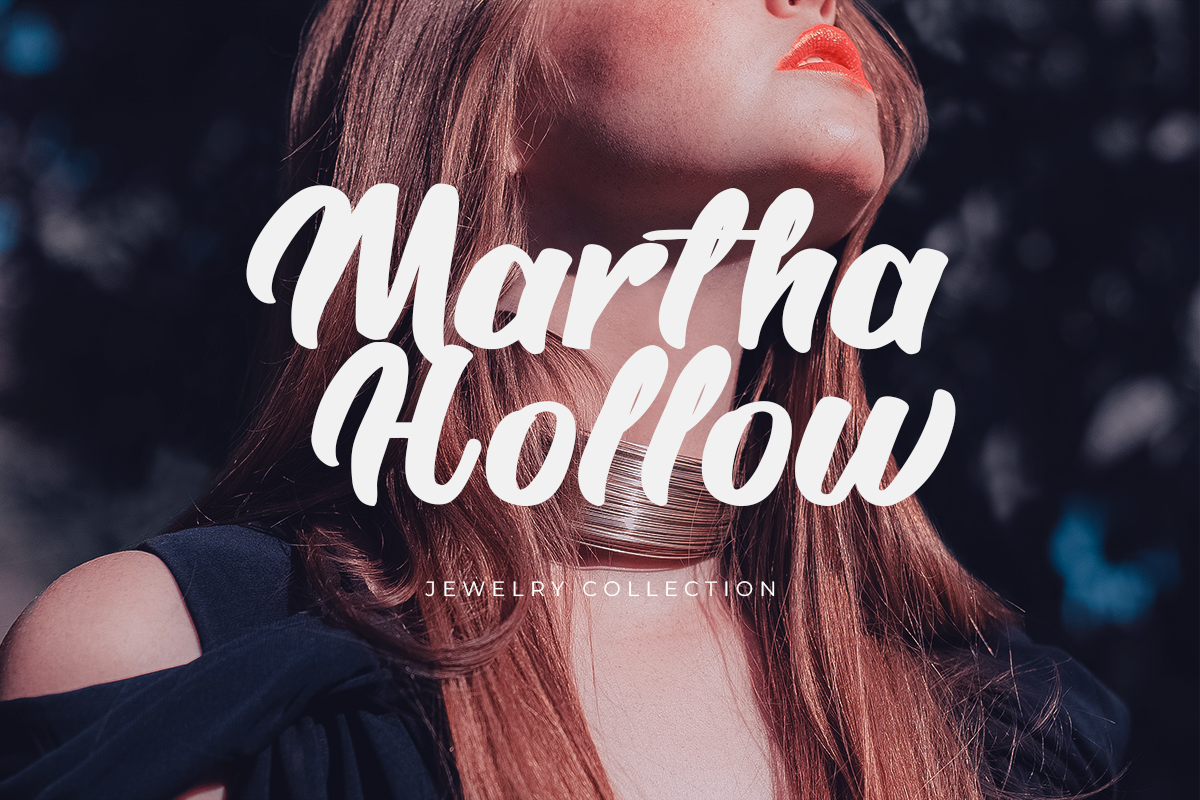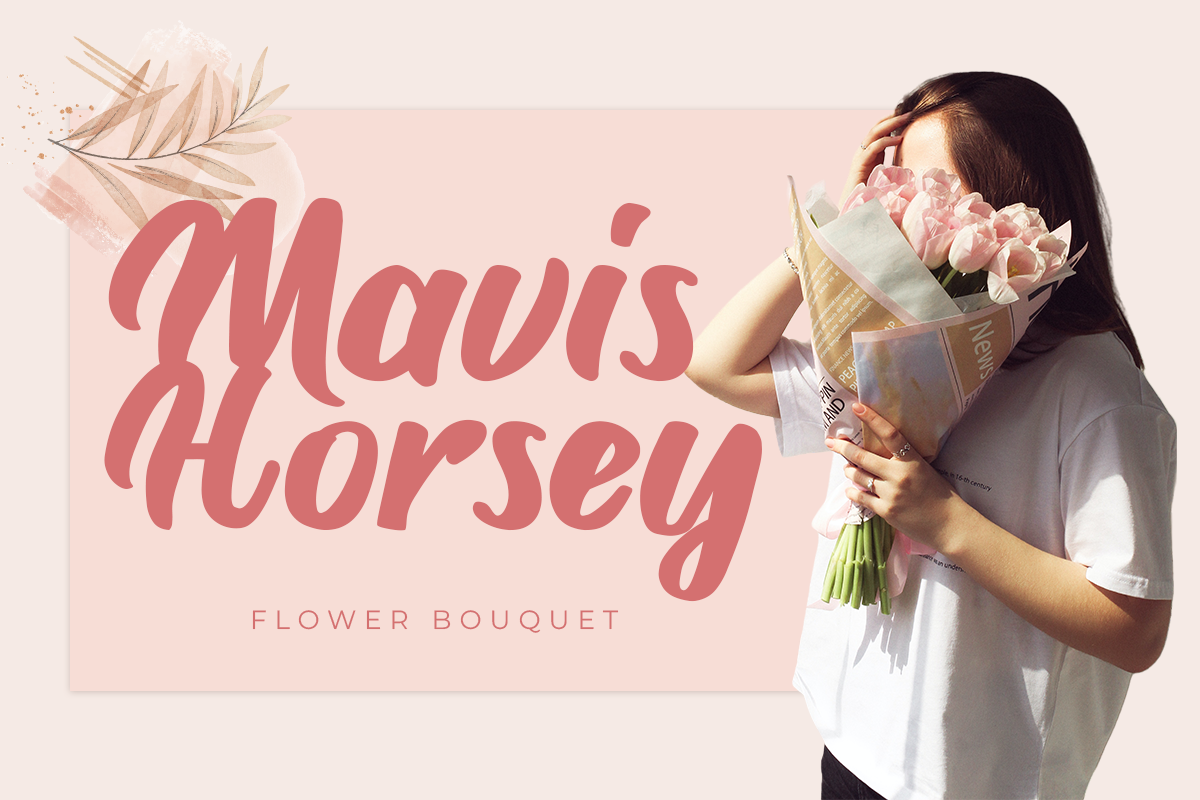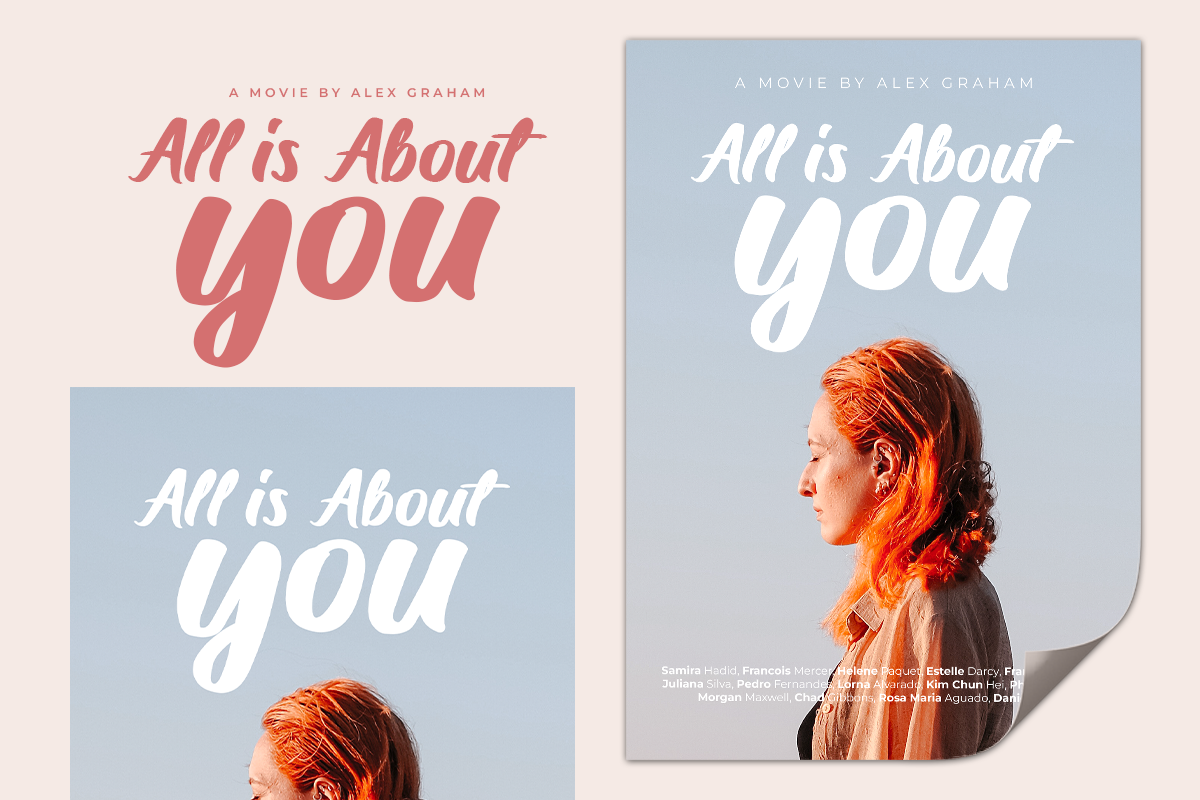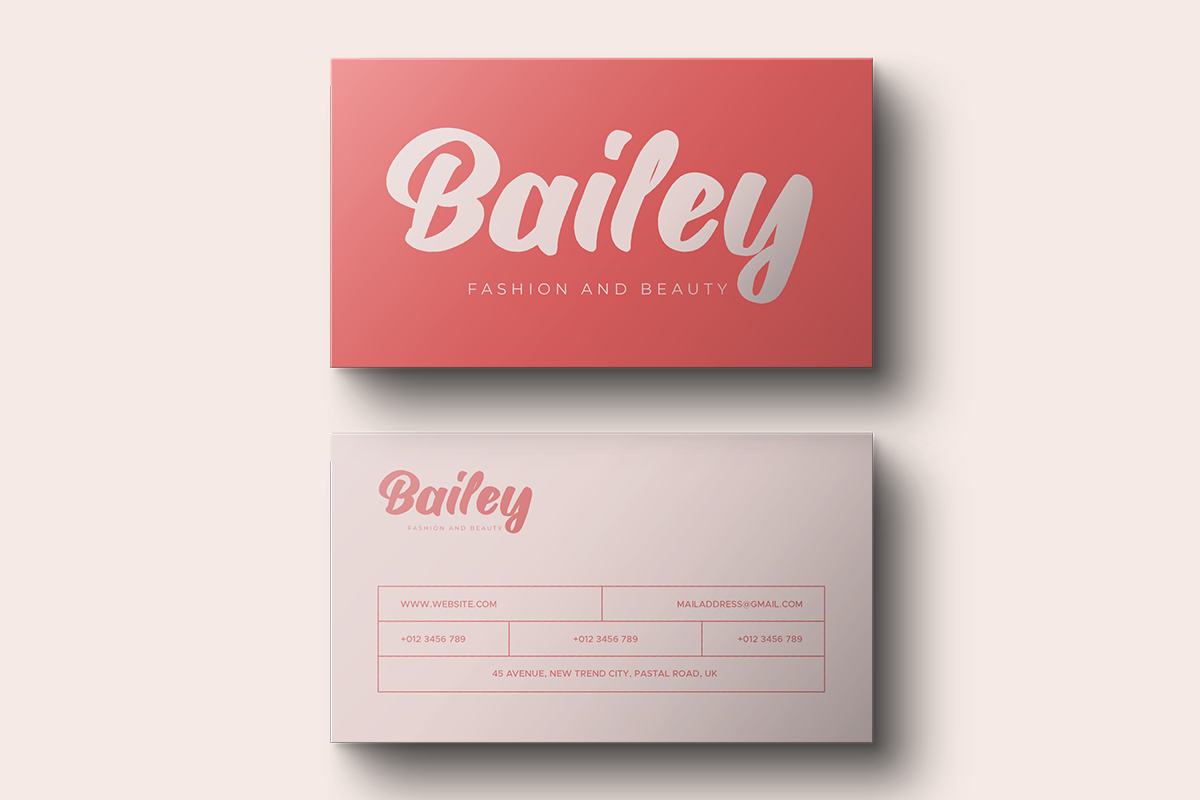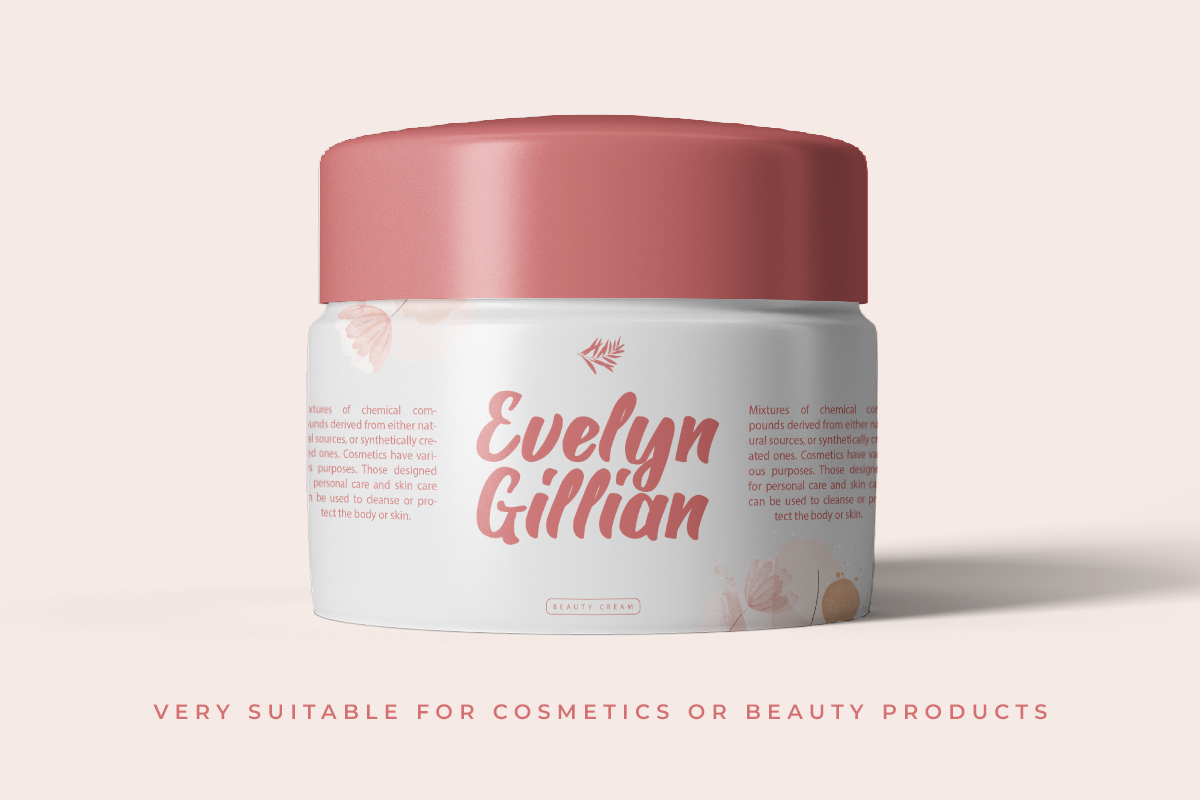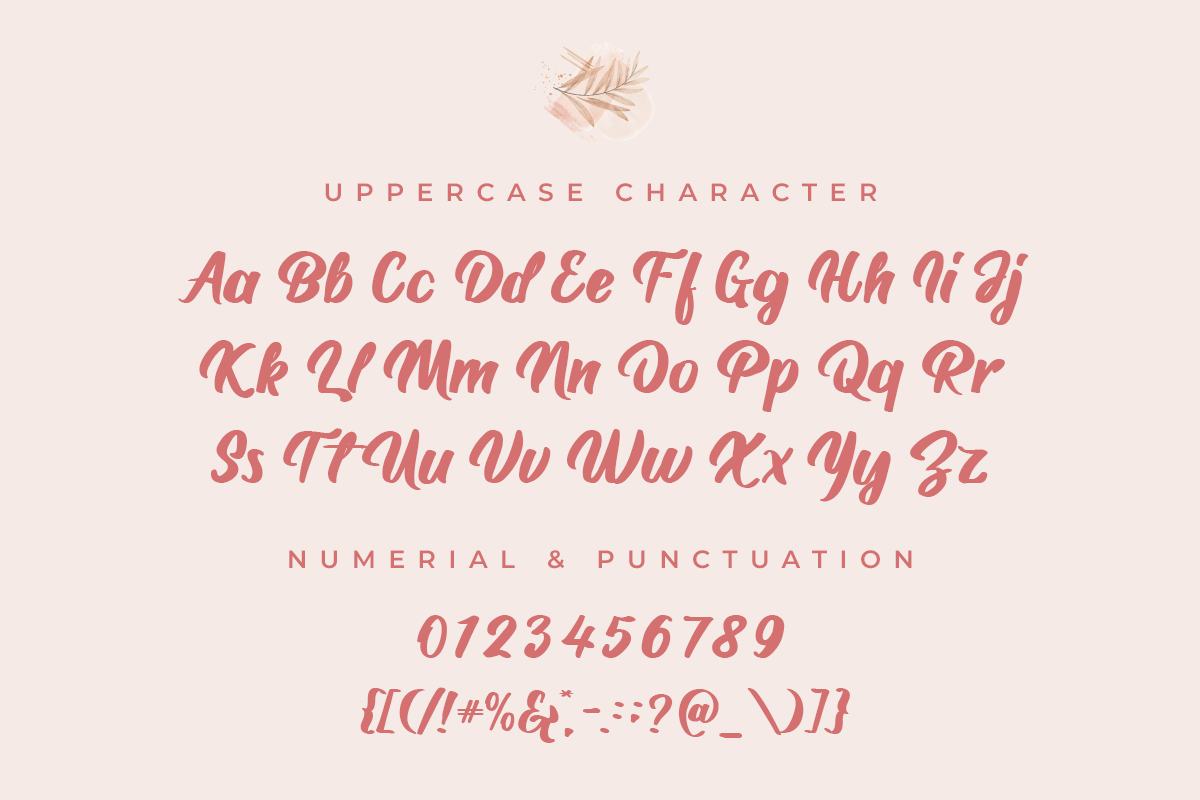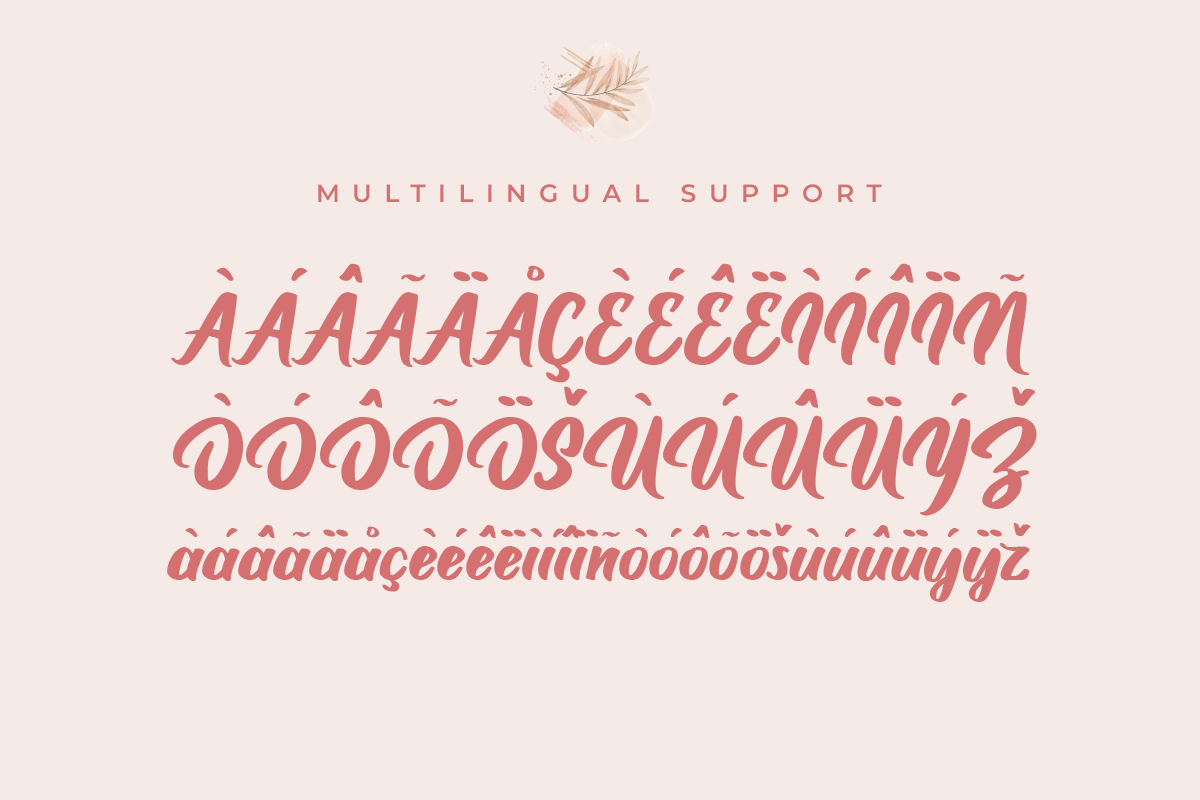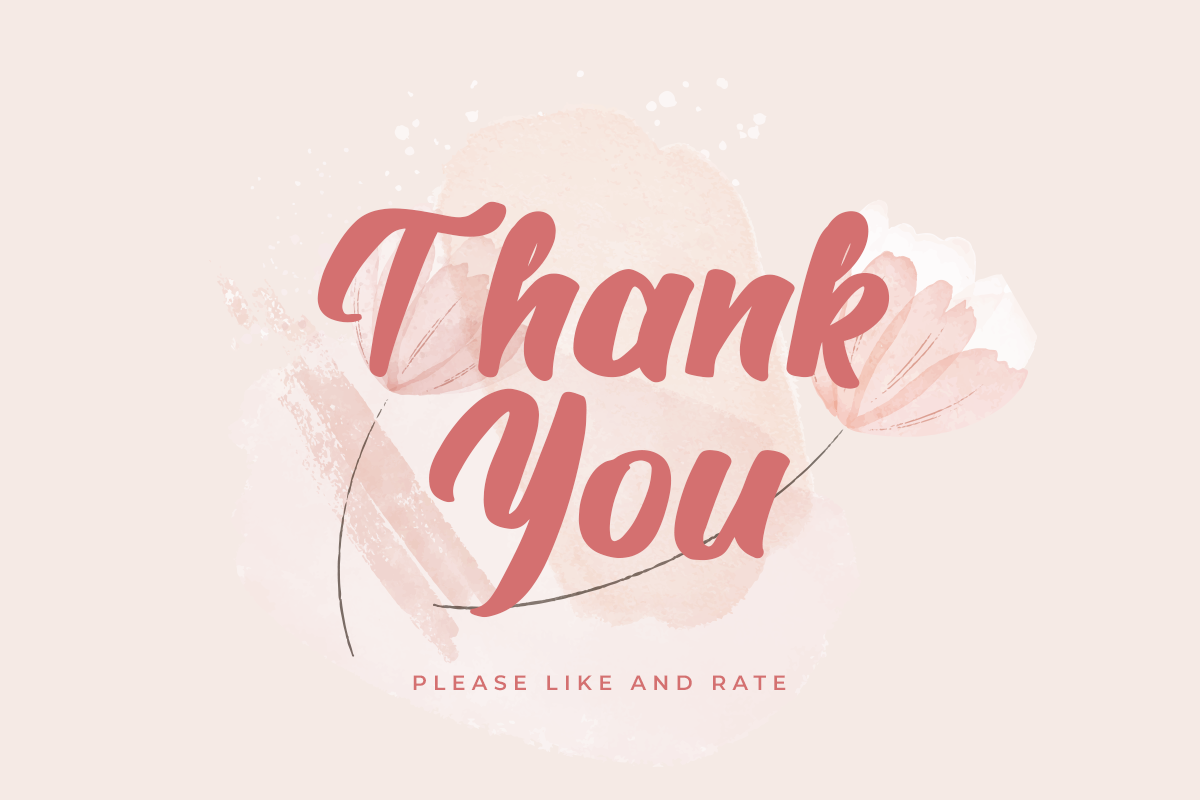
Muramasa Classy Handwritten Font Script & Signature Font provides a wide selection of font types that have interesting characteristics. This time the Muramasa Classy Handwritten Font is one of the best choices among other fonts. This font is made to resemble handwriting with the help of a brush in its manufacture. Not only that, but it is also in the form of uncovered strokes giving an aesthetic and modern impression. With unique characteristics, Muramasa Classy Handwritten Font is still relatively easy to distinguish between letters. Seeing the explanation, the Muramasa Classy Handwritten Font is legible. This font is suitable for printing in both large and small sizes. It will be obvious, as long as it is not filled with excessive ornamentation. When Muramasa Classy Handwritten Font stands alone, it already has artistic value and looks attractive. Muramasa Classy Handwritten Font is a typeface that is well-suited for writing on modern equipment. Muramasa Classy Handwritten Font is blendable on the board which adds artistic value and the board's appeal. Muramasa Classy Handwritten Fontt can also write on book covers and stickers. Apart from that, this font is also suitable for music video intros that contain song titles, metropolitan-themed movie titles with dark tones, and other videos that can indeed be combined with Muramasa Classy Handwritten Font. In its application, Muramasa Classy Handwritten Font can choose various font sizes and the appropriate file types. Our script & signature fonts collection is compatible with Figma Fonts, Canva Fonts, Freepik Fonts, and Adobe Fonts. They also work as Windows Fonts and Apple Fonts. For your social media needs, you can use and install fonts in our Script & Signature font collection to use as Instagram Fonts, Facebook Fonts, and Twitter Fonts.